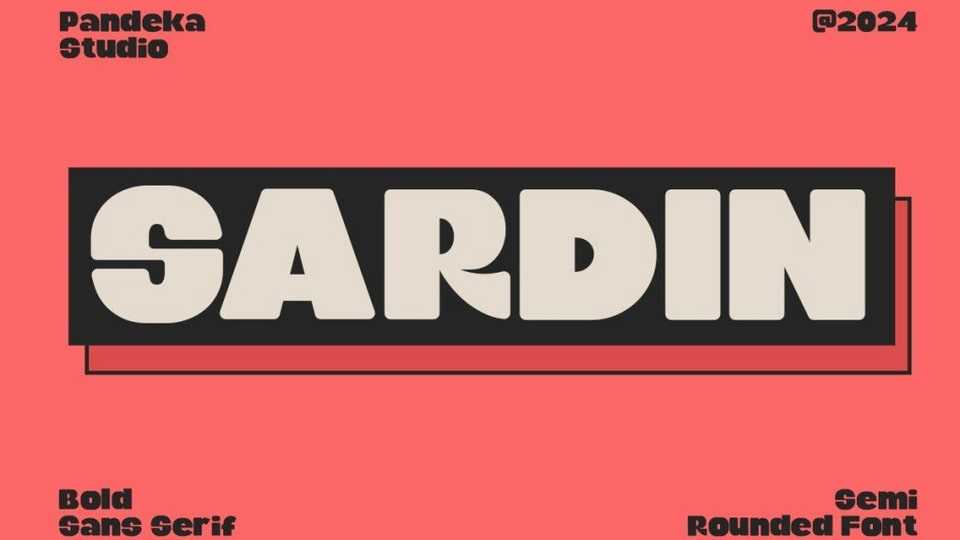
Download Sardin font, a display typeface inspired by the 90’s playful cartoons and comic books. The font contains everything you need to create stunning typography.